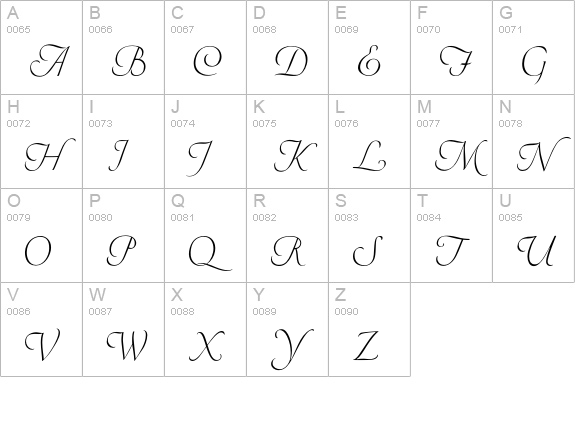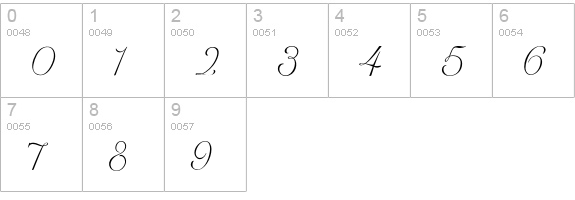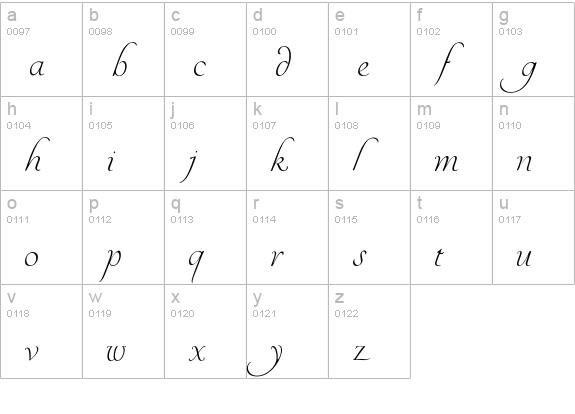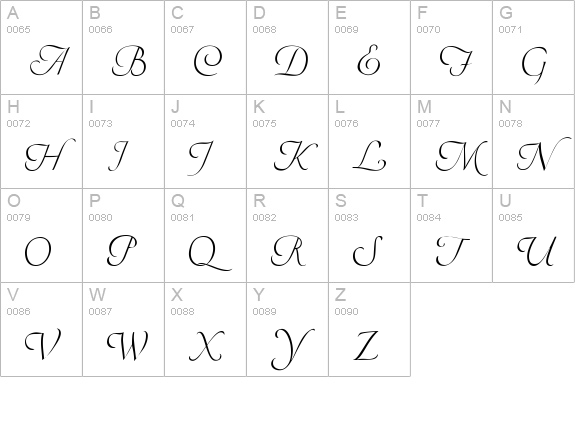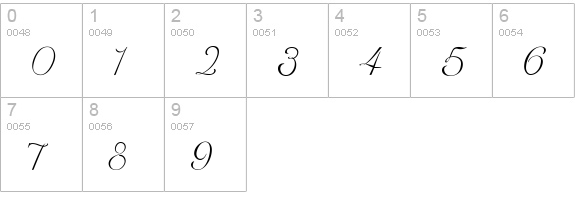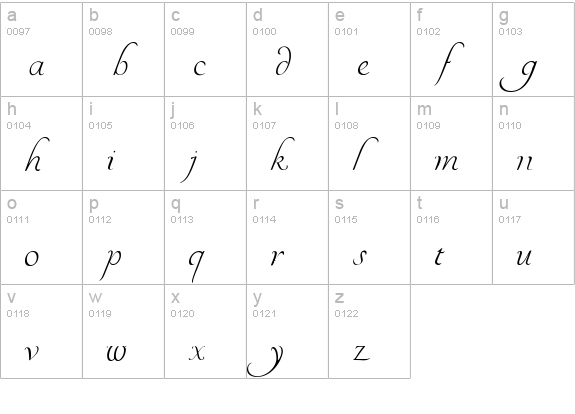
YoureInvited is a free for personal use font in the General > Serif category. It has been downloaded 260 times and is available for Windows, Mac and Linux.
You're Invited font is a whimsical and playful typeface that exudes joy and excitement. Its elegant and flowing letterforms are perfect for creating eye-catching invitations, greeting cards, and event announcements. This font effortlessly captures the essence of celebration and adds a touch of sophistication to any design. But what makes You're Invited even more special is that it is available for free! That's right, you can download this amazing font without spending a single penny. Thanks to its creators' generosity, You're Invited is freely available to download at FontsMarket.com. With its wide range of characters and beautifully designed glyphs, You're Invited font allows you to unleash your creativity and add a personal touch to your projects. Whether you are planning a wedding, organizing a birthday party, or creating a festive holiday card, You're Invited font will make your designs stand out and leave a lasting impression on your audience. The versatility of You're Invited font is truly remarkable. Its clean and legible design ensures that your text remains easily readable, while its playful and decorative elements inject a sense of fun and excitement. This font is perfect for both print and digital applications, making it a valuable asset for graphic designers, event planners, and anyone looking to add a touch of elegance and charm to their projects. So, why wait? Go ahead and download You're Invited font for free at FontsMarket.com. Discover the endless creative possibilities that this font has to offer and make your invitations, cards, and announcements truly unforgettable. Get ready to impress your guests and make every occasion a memorable one with You're Invited font.